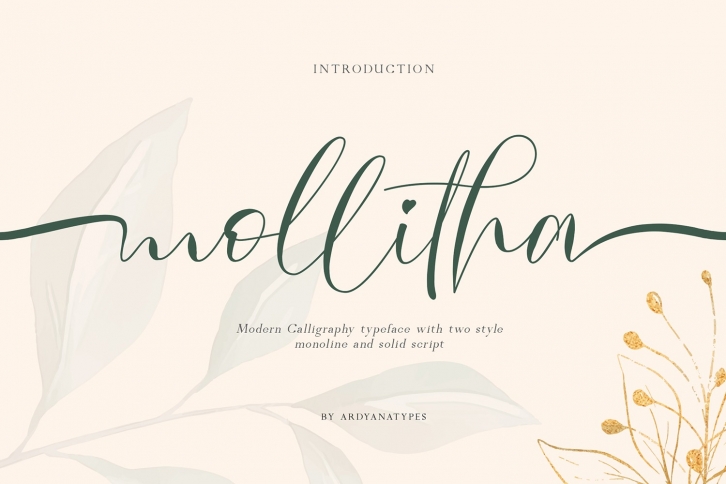
Mollitha is a trendy and unique font with an authentic style. It was designed by Ardyanatypes and it's a great choice for creative people who need such a font. It was released on April 6, 2020 and the file size is 15.58 MB. Mollitha will add an organic vibe to any design idea!